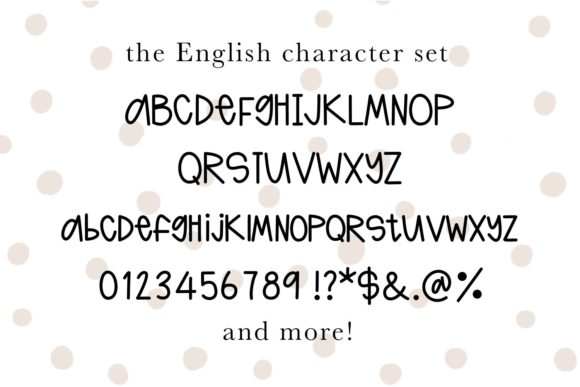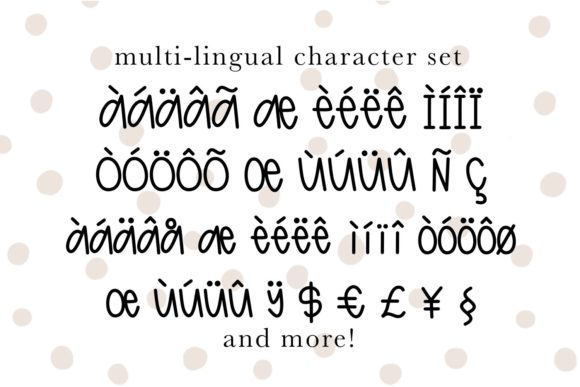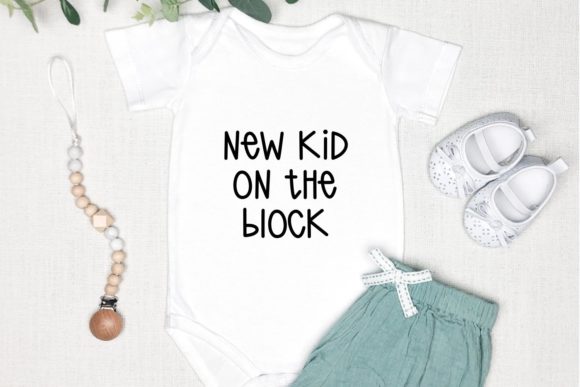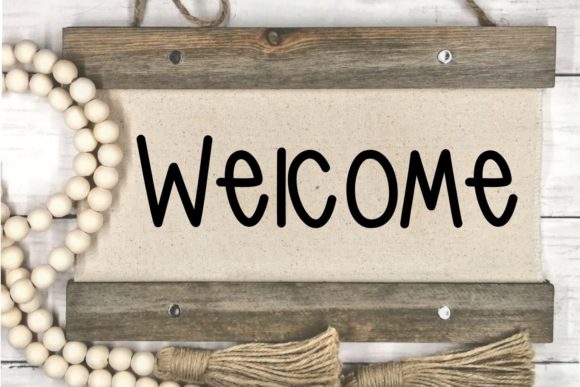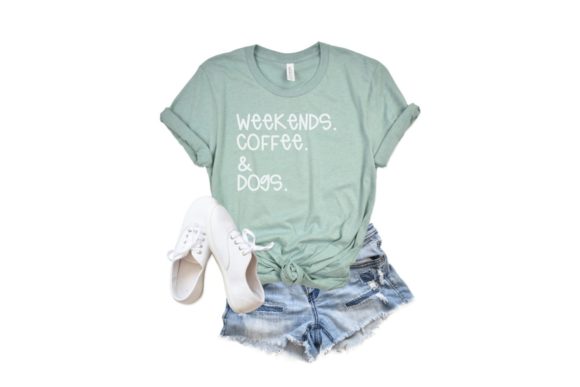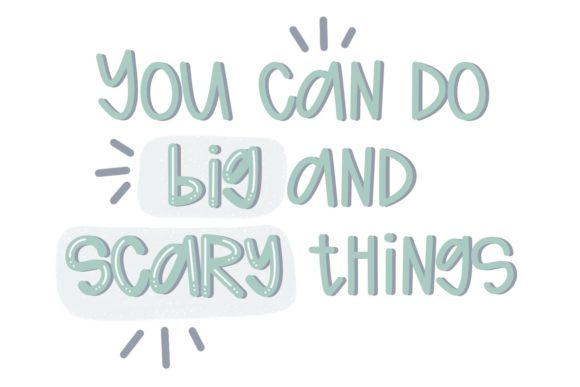
Introducing Hadley Font: The Fun and Versatile Handwritten Sans Serif Font
Are you a designer or crafter looking for a font that can add a personal touch to your creative projects? Look no further than Hadley Font! This fun, mixed capital handwritten sans serif font is simple, easy to use, and perfect for a variety of craft designs. In this article, we’ll dive into the features and benefits of Hadley Font, and explore how you can use it to take your designs to the next level.
What is Hadley Font?
Hadley Font is a unique and playful font that combines the best of handwritten and sans serif styles. Its mixed capital letters give it a friendly and approachable feel, making it perfect for designs that need a personal touch. The font is highly legible and versatile, making it suitable for a wide range of applications, from craft projects to digital designs.
Key Features of Hadley Font
- Fun and playful design: Hadley Font has a unique and energetic design that adds a touch of whimsy to any project.
- Mixed capital letters: The font’s mixed capital letters give it a friendly and approachable feel.
- Highly legible: Despite its playful design, Hadley Font is highly legible, making it perfect for body text and headings.
Benefits of Using Hadley Font
So why choose Hadley Font for your next project? Here are just a few benefits of using this versatile font:
- Adds a personal touch: Hadley Font’s handwritten feel adds a personal touch to any project, making it perfect for craft designs and digital projects that need a human touch.
- Versatile: Hadley Font is highly versatile, making it suitable for a wide range of applications, from paper crafting to digital designs.
- Easy to pair with other fonts: Hadley Font pairs well with a variety of other fonts, making it easy to create unique and interesting font combinations.
Using Hadley Font in Your Designs
So how can you use Hadley Font in your designs? Here are a few ideas to get you started:
- Craft projects: Hadley Font is perfect for a variety of craft projects, including paper crafting, scrapbooking, and card making.
- Digital designs: Hadley Font can be used in digital designs, such as social media graphics, blog posts, and website headers.
- Sign making: Hadley Font’s clear and legible design makes it perfect for sign making, whether you’re creating a sign for a business or a personal project.
Tips for Getting the Most Out of Hadley Font
Here are a few tips for getting the most out of Hadley Font:
- Experiment with font sizes: Hadley Font looks great in a variety of font sizes, from large headings to smaller body text.
- Pair with other fonts: Don’t be afraid to pair Hadley Font with other fonts to create unique and interesting font combinations.
- Use in combination with images: Hadley Font looks great in combination with images, making it perfect for designs that include photos or illustrations.
Hadley Font is a fun and versatile font that’s perfect for designers and crafters looking to add a personal touch to their creative projects. With its unique and playful design, mixed capital letters, and high legibility, Hadley Font is sure to become a favorite in your font collection. So why not give it a try and see how it can enhance your designs?